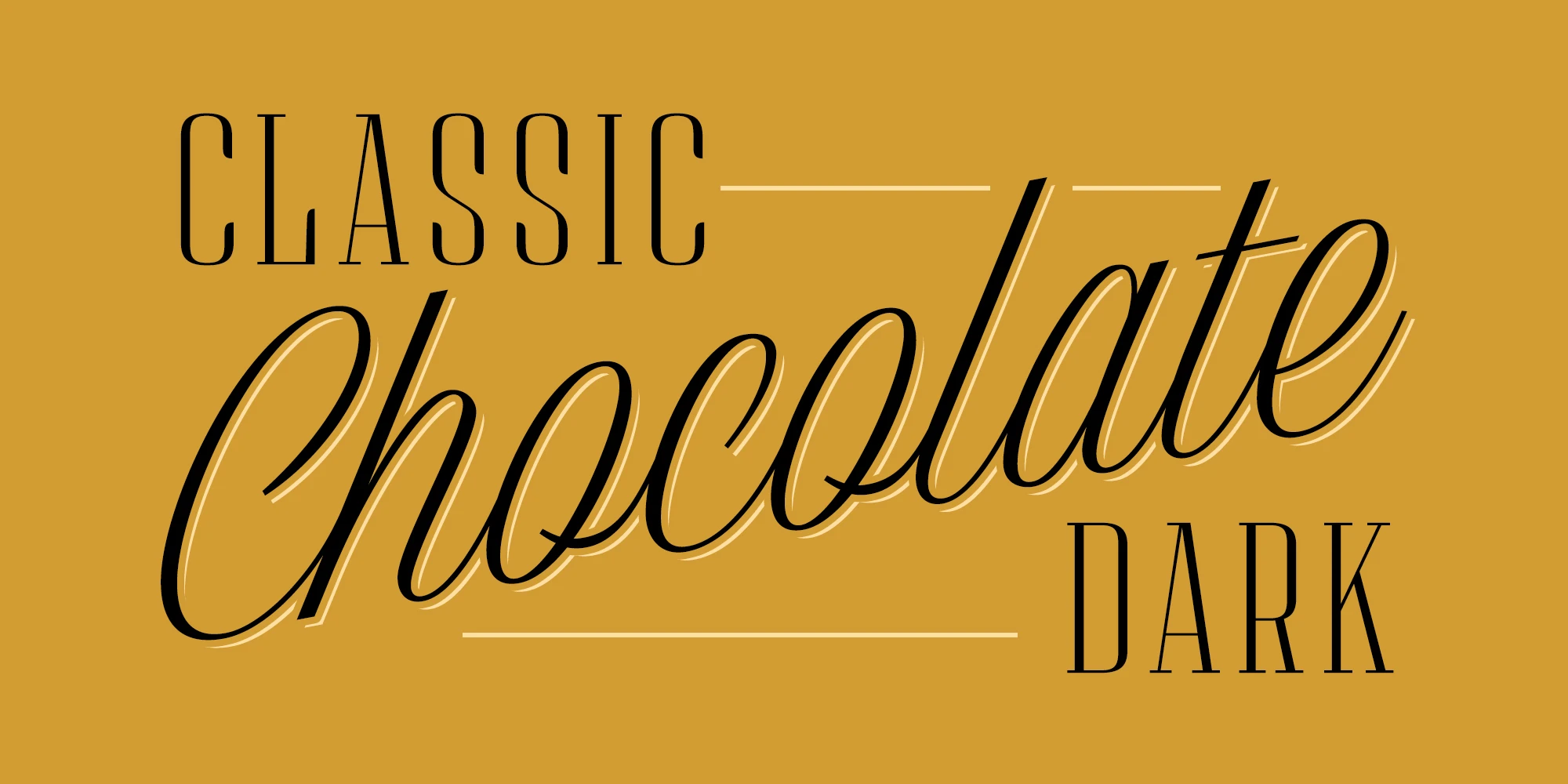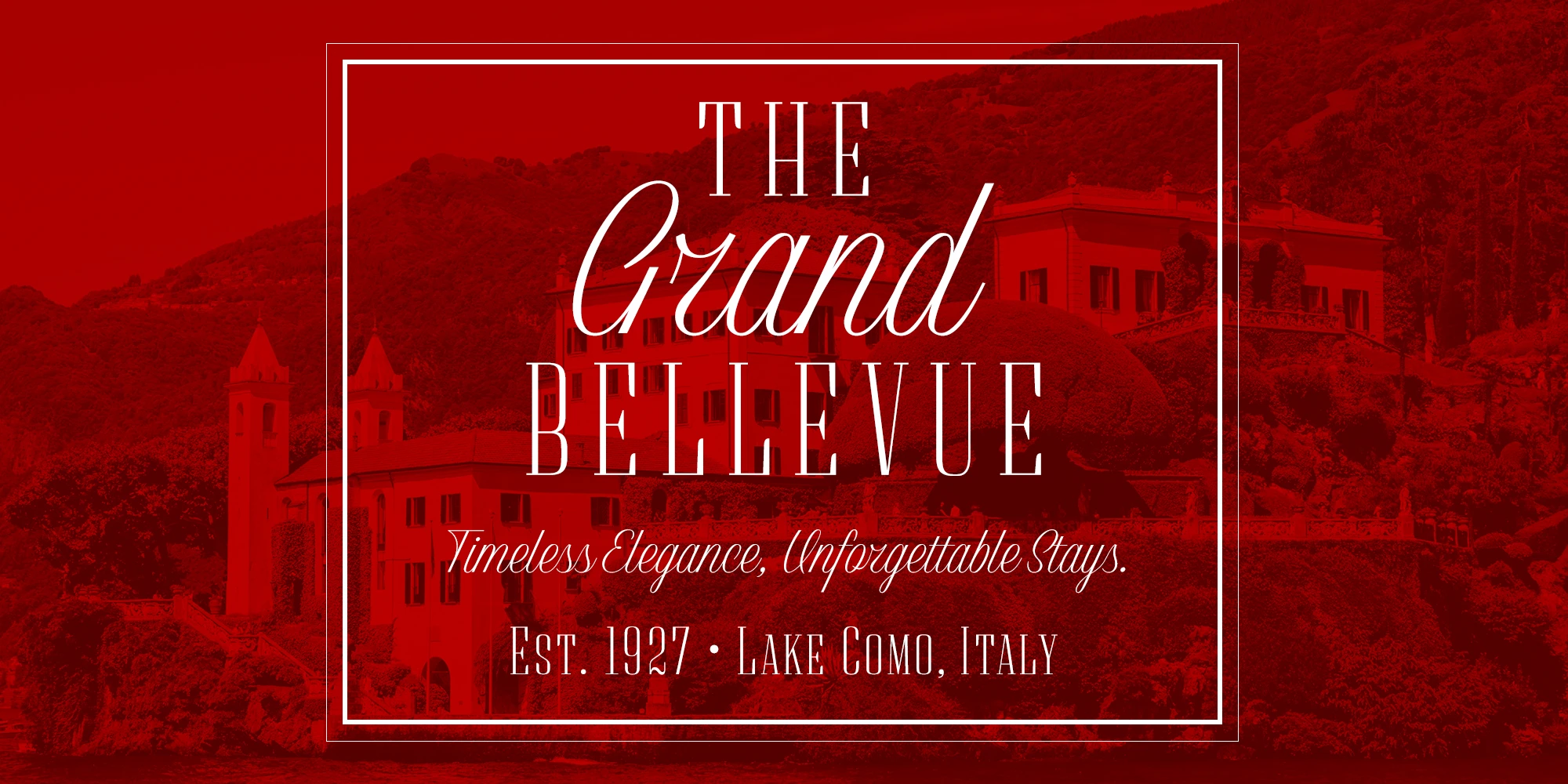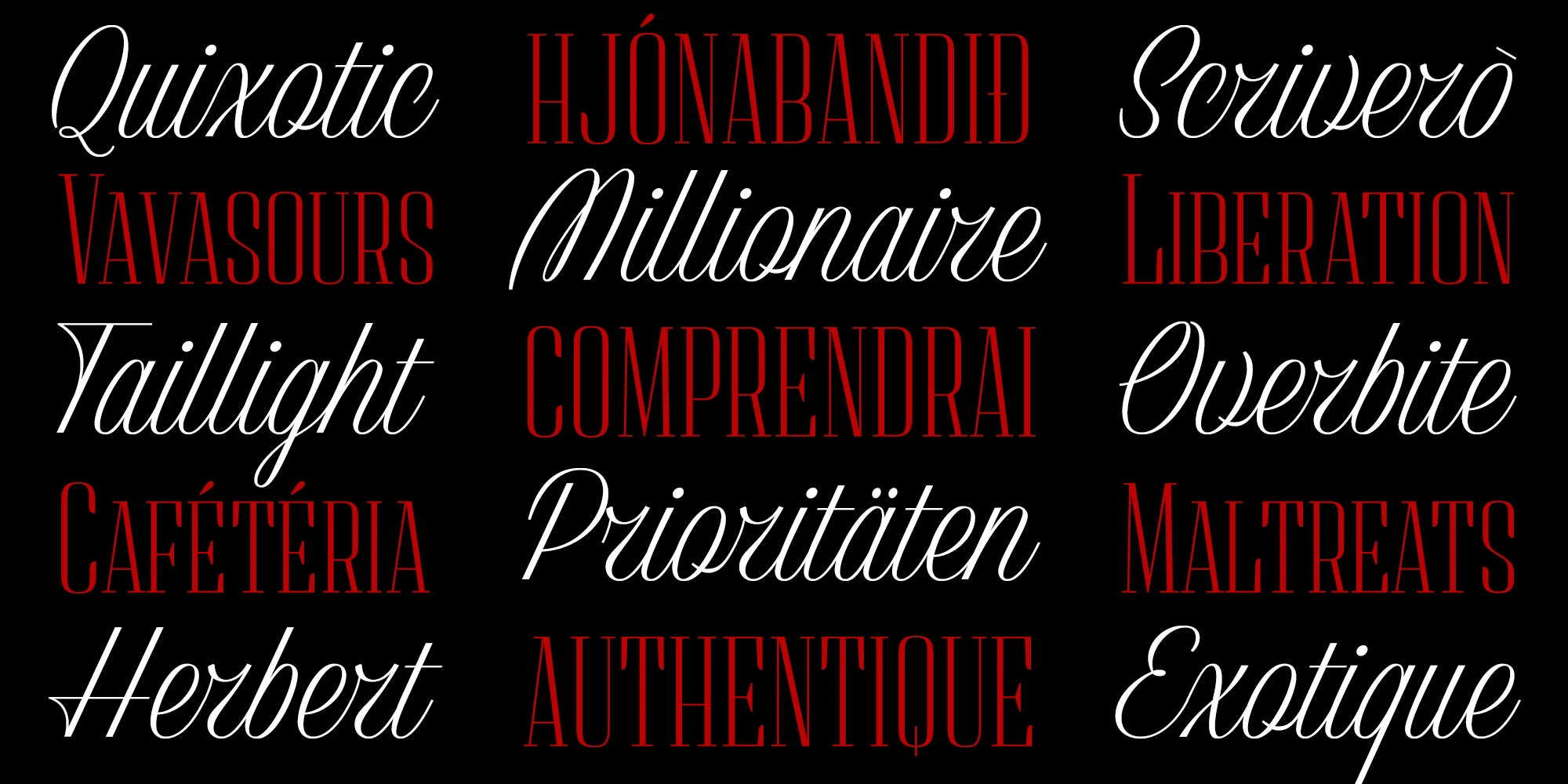
Classic Ruby • 2 styles
Classic Ruby is a refined type duo blending a modern serif with a vintage English script. Inspired by the elegance of the mid-20th century, it evokes an era of Cadillacs and classic ballads. The serif features all caps with small caps for added versatility, while the script includes select alternates to enhance flow and personality. Together, they create a sophisticated pairing ideal for wedding invitations, fashion editorials, album covers, coffee table books, and upscale event posters.
Classic Ruby Serif
Classic Ruby Script